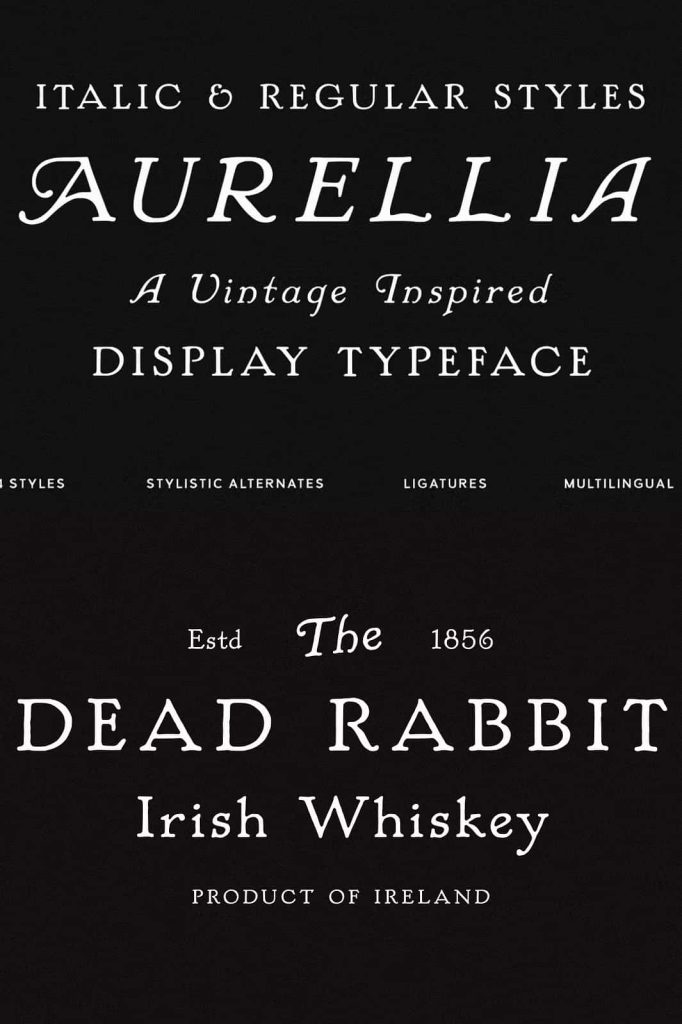
Aurellia is more than just a typeface—it’s a celebration of timeless design and vintage elegance. Designed with precision and passion, Aurellia offers a refined balance between classic sophistication and contemporary clarity. This stunning vintage display typeface captures the essence of old-world charm while maintaining the functionality demanded by modern designers.
Elegant and Distinctive Design
Every curve, serif, and stroke in Aurellia has been thoughtfully crafted to create a typeface that feels both familiar and fresh. Its delicate serifs add an air of refinement, while subtle character details bring warmth and individuality. Unlike many purely decorative fonts, Aurellia’s clean structure ensures high readability, making it suitable for a wide range of creative projects.
The typeface’s balanced letterforms allow it to stand out without overwhelming a composition. Whether displayed in large headlines or used in smaller text settings, Aurellia delivers a consistent and graceful visual rhythm. Its versatile nature ensures it remains a designer’s reliable companion across multiple design contexts.
Perfect for Modern and Classic Design Projects
Aurellia seamlessly bridges the gap between vintage style and modern usability. It’s the ideal choice for projects that demand both personality and polish. From luxury branding to book covers and editorial layouts, this font brings sophistication to every design. Its timeless appeal makes it perfect for:
- Book Covers: Create captivating titles that feel both literary and artistic.
- Brand Identity: Establish a unique voice for premium products or boutique brands.
- Editorial Layouts: Add elegance and contrast to magazine headlines and feature sections.
- Packaging Design: Give your product a distinctive, upscale presentation with a vintage touch.
Each letterform in Aurellia was designed to communicate trust, heritage, and creativity. Its carefully tuned proportions ensure harmony when paired with other design elements, allowing it to complement both minimalist and ornate layouts with equal success.
A Typeface with Character and Versatility
What truly sets Aurellia apart is its ability to adapt. It embodies a sense of history yet feels relevant to contemporary aesthetics. Designers appreciate its flexibility—Aurellia can evoke nostalgia in one context and sophistication in another. The typeface’s gentle curves and balanced spacing make it ideal for projects that require both emotional impact and visual clarity.
Whether used for digital media, print publications, or packaging, Aurellia retains its expressive power. Its combination of refined detail and understated strength ensures your message stands out with confidence and style. By merging craftsmanship with modern functionality, Aurellia becomes a lasting tool in any designer’s collection.
Why Choose Aurellia for Your Next Project
Choosing Aurellia means choosing quality, adaptability, and aesthetic harmony. It’s not merely a display typeface—it’s a design statement. Its timeless beauty allows it to work across decades of design trends, ensuring your projects remain stylish and relevant. Whether you’re creating a brand story or enhancing visual storytelling through typography, Aurellia provides the voice of sophistication and authenticity.
With its perfect balance of elegance and usability, Aurellia stands as a testament to the art of typography—where design meets emotion, and tradition meets innovation. Make your designs unforgettable with Aurellia’s vintage charm and modern precision.